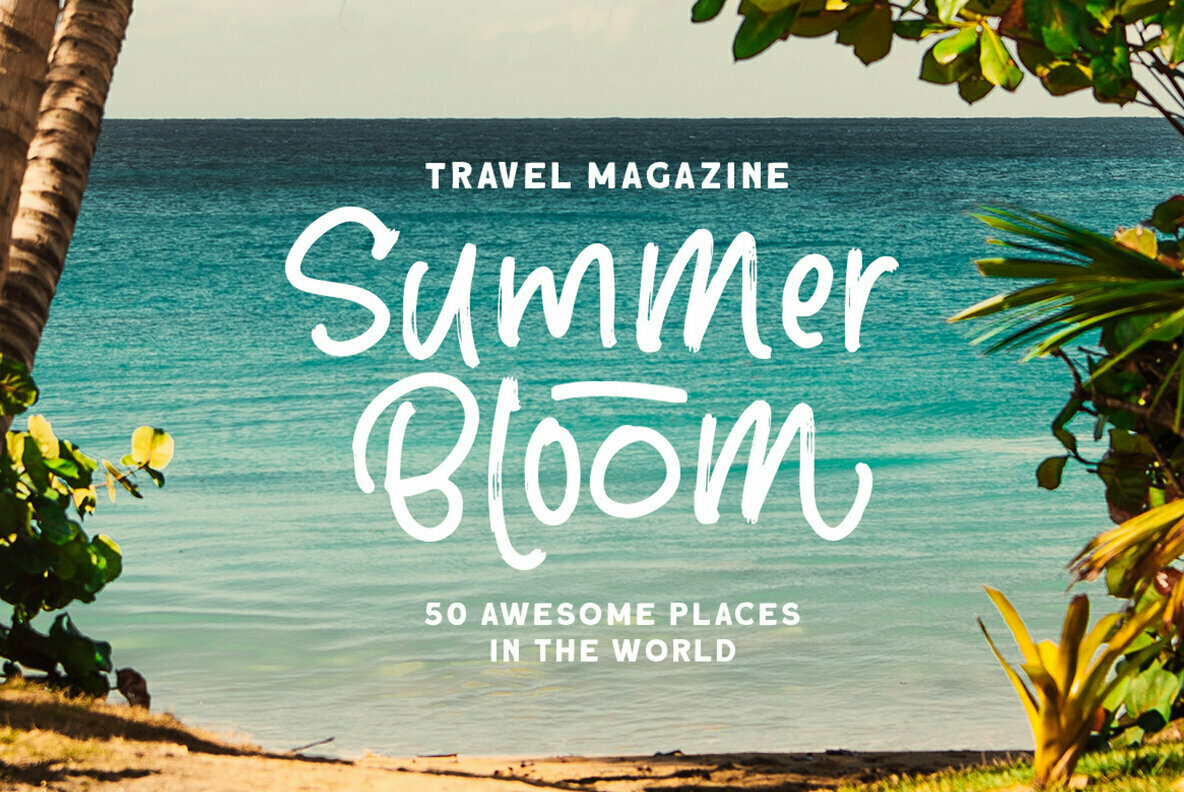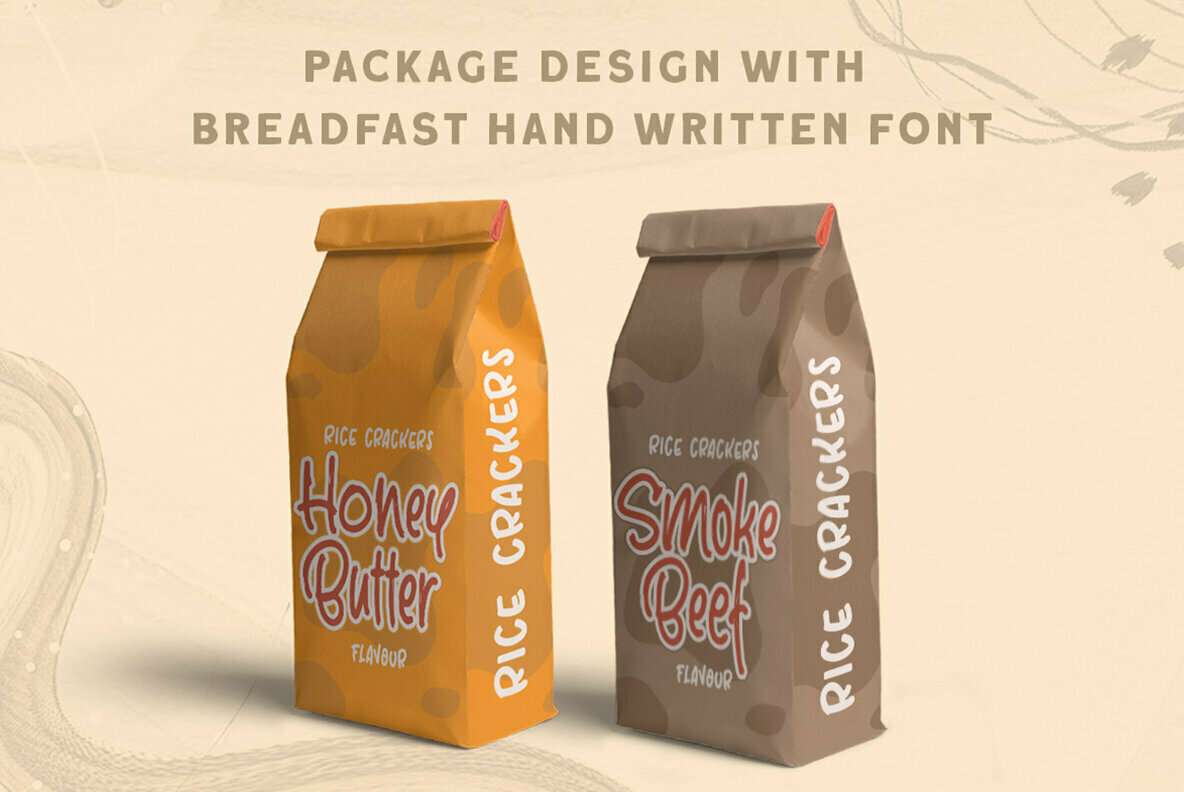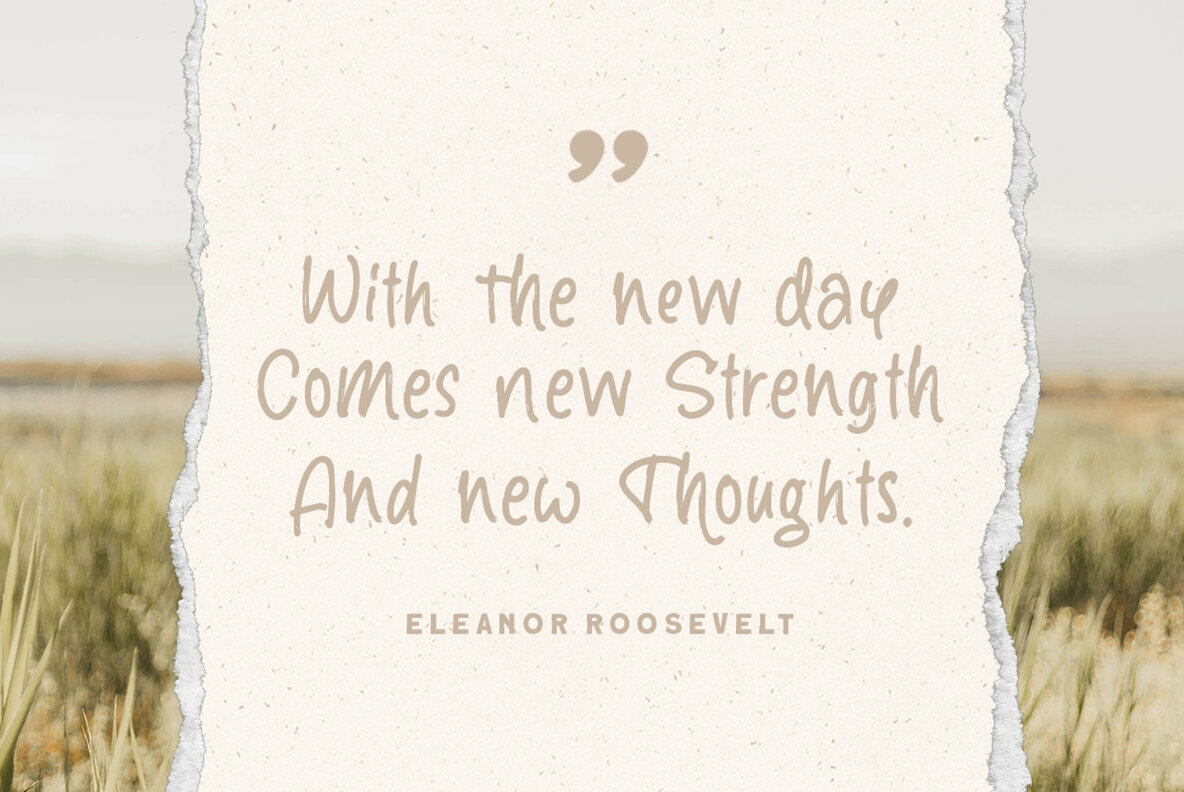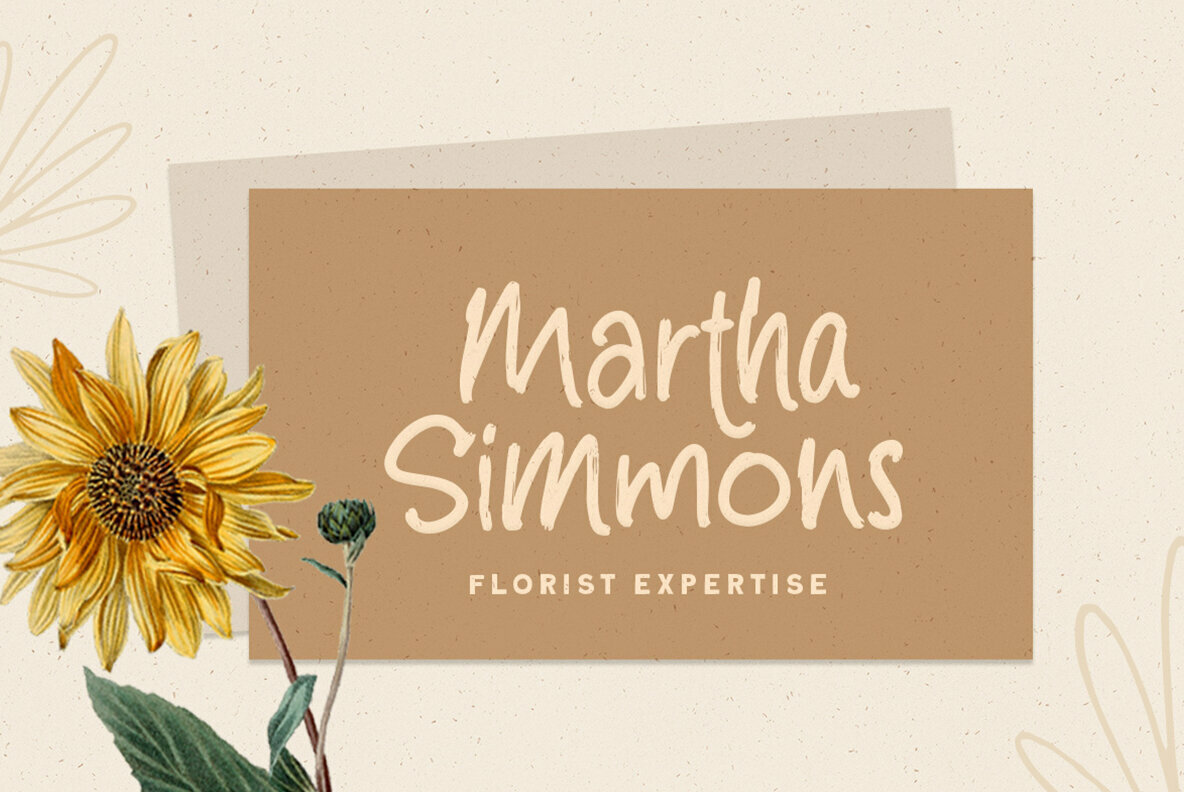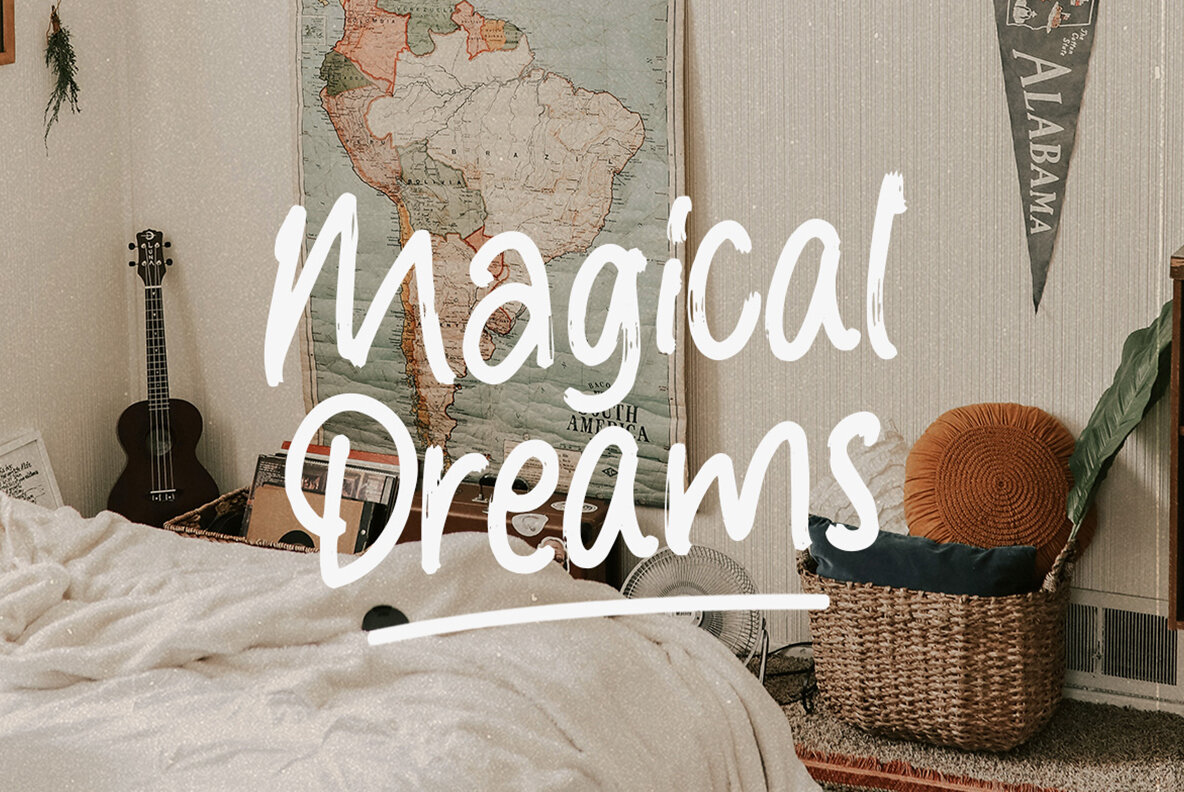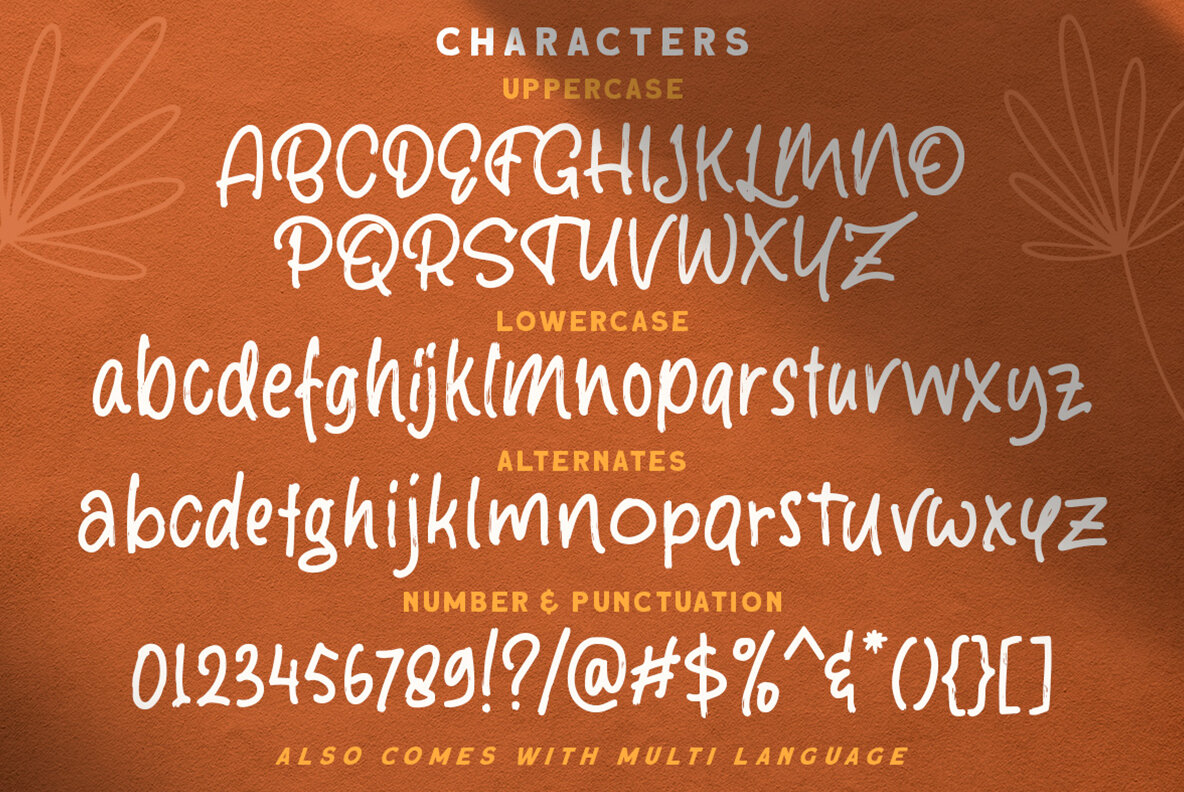
Breadfast: Handcrafted Charm for Playful Designs
Breadfast offers a delightful handwritten style ideal for crafting a unique aesthetic in various creative projects. This versatile font includes a complete set of uppercase and lowercase letters, symbols, and alternate characters, making it adaptable for branding, quotes, and more exuberant design work.
• Uppercase & Lowercase – Perfect for diverse text styles.
• Symbols & Alternates – Provides flexibility in design.
• Multilingual Support – Extends usability across languages.